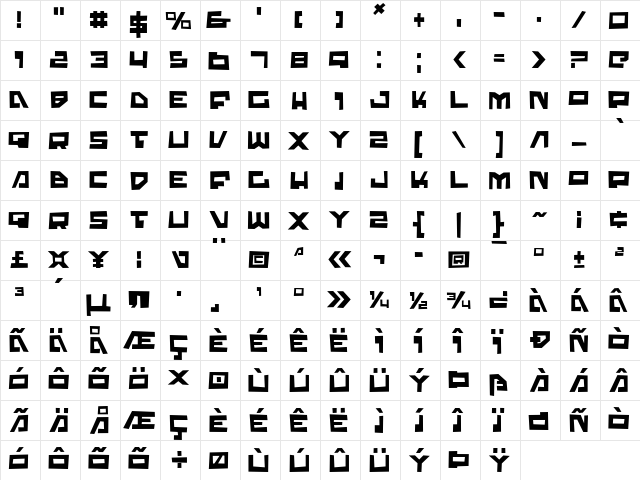
Trajia Trash Trash
Design Context for Trajia Trash Typeface
Trajia Trash is a composed and adaptable typeface that performs quietly and consistently across a wide range of design contexts.